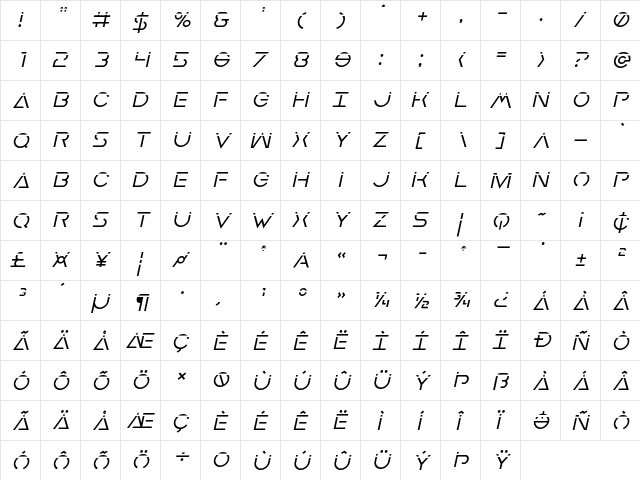
Earth Orbiter Laser Italic Italic
Design Context for Earth Orbiter Laser Italic Typeface
Earth Orbiter Laser Italic takes a measured approach to typography — its balanced proportions and neutral character make it a reliable workhorse for both digital and print work. The dynamic lean of this cut emphasises speed and emphasis in any layout.
Pro Tip: Use Earth Orbiter Laser Italic for emphasis, pull quotes, and subheadings where its slanted energy can add rhythm to the layout.